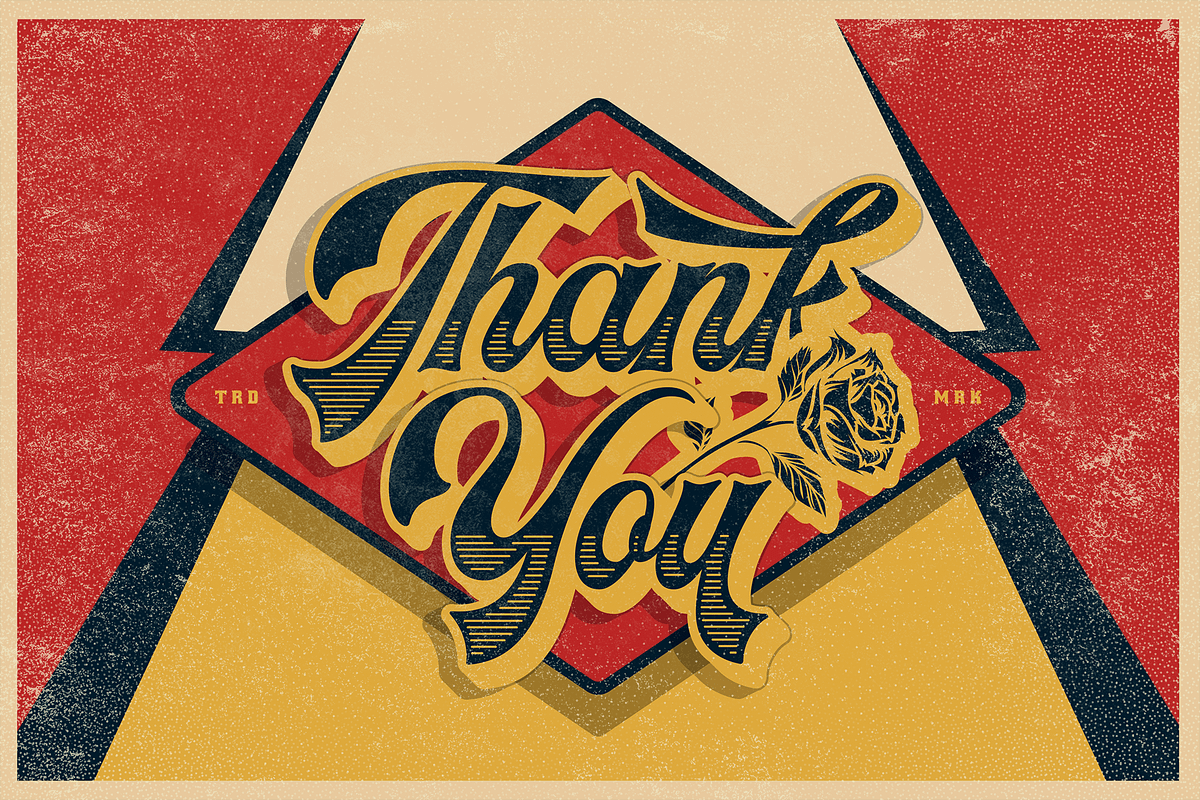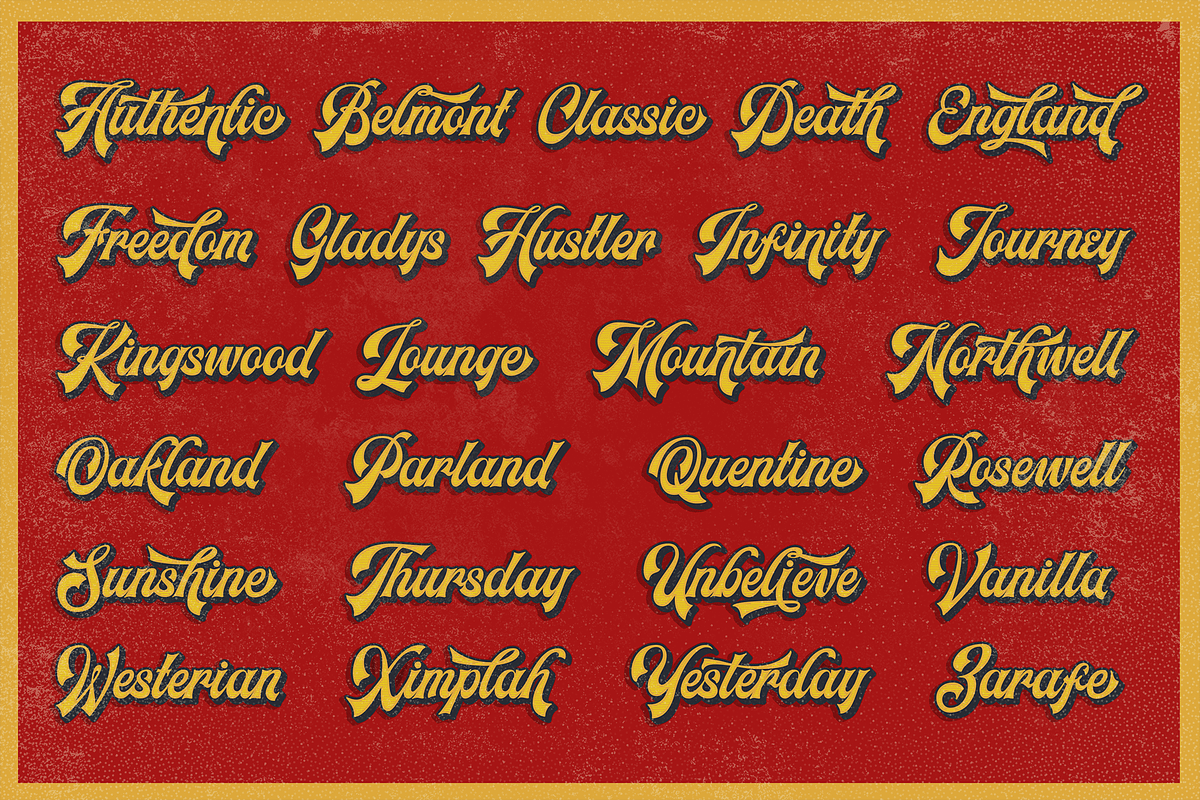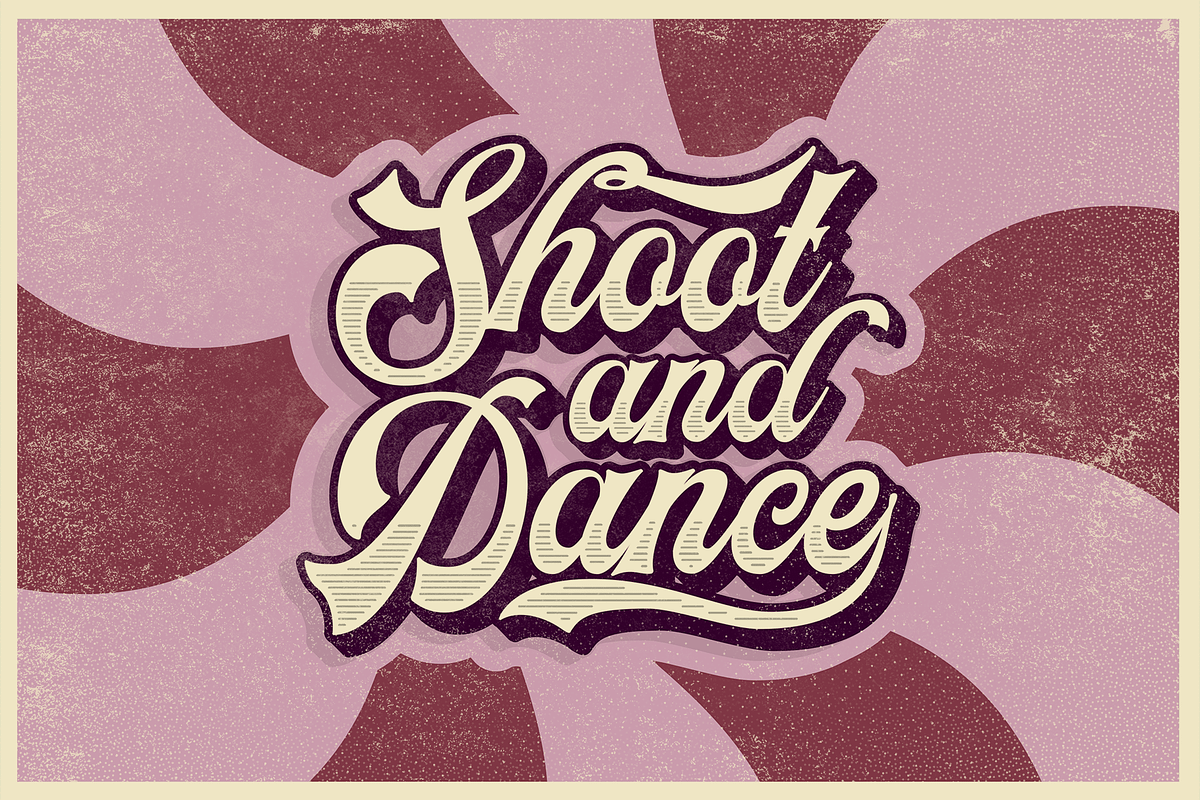
Headster Layered Family
Introducing Headster , bold script typeface that inspired by vintage label designs. Come up with layered system, 05 fonts total. With many alternate characters option to play. You can mix and match your best combination. With all those things we mention about, this font is perfect for your many design projects, such as Flyer, Logo Design, Badge, Packaging, Invitation and more.